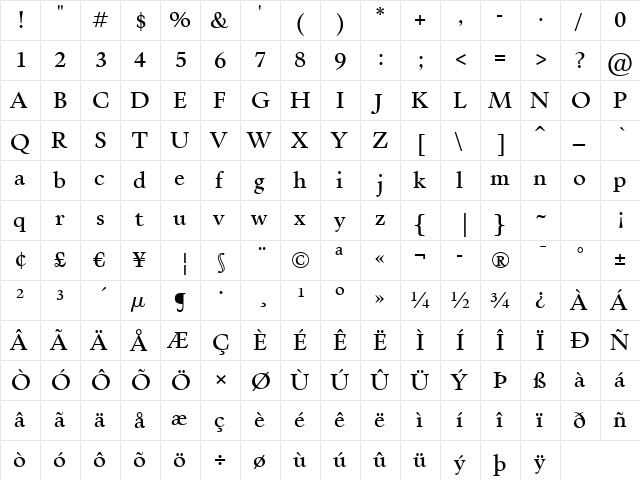
Kennedy Md GD Medium
Design Context for Kennedy Md GD Typeface
Kennedy Md GD is a composed and adaptable typeface that performs quietly and consistently across a wide range of design contexts.